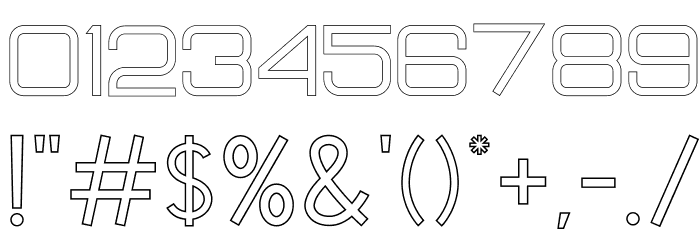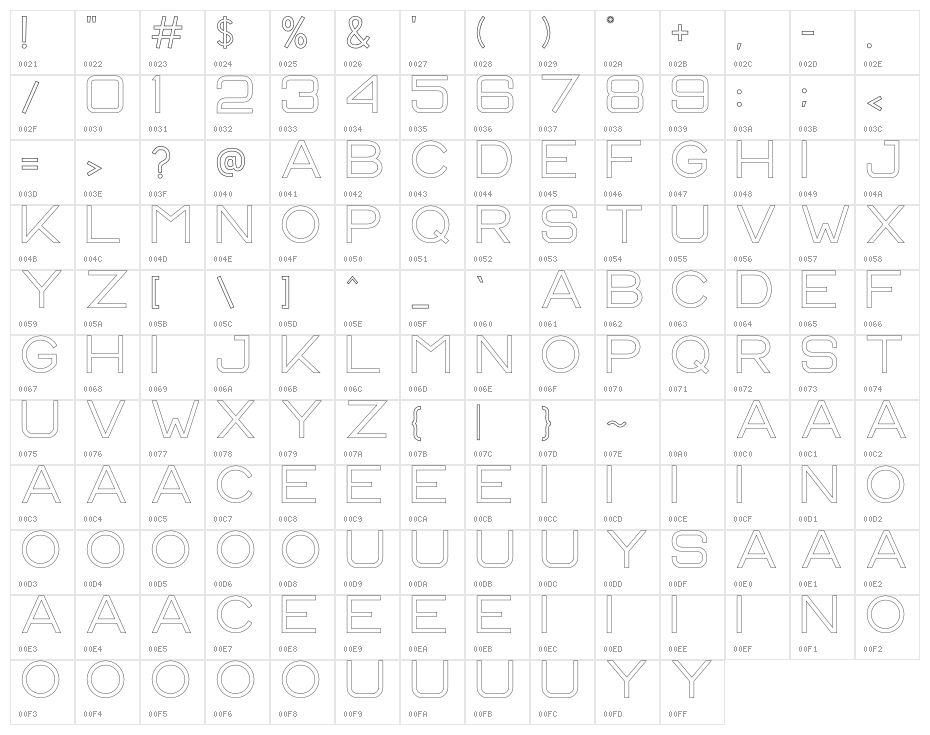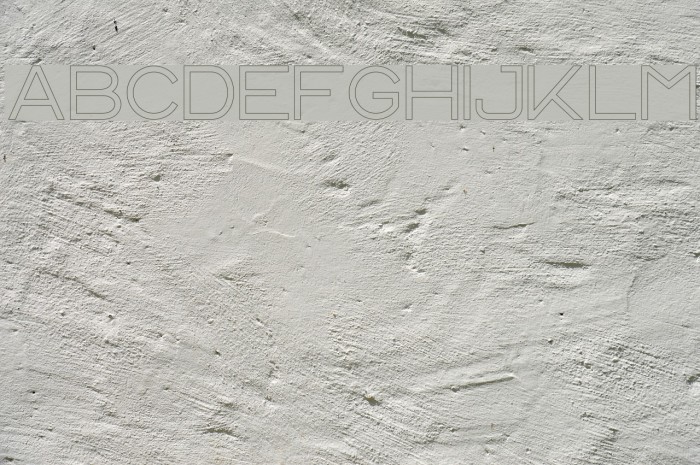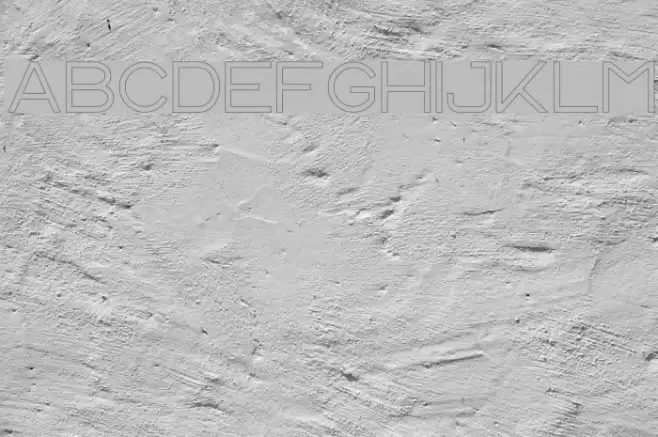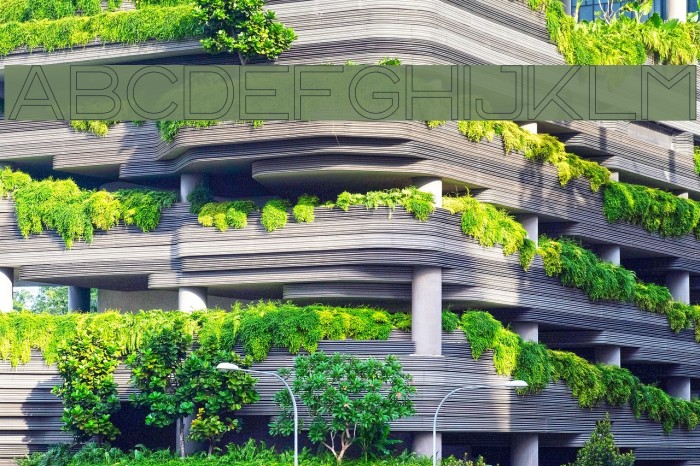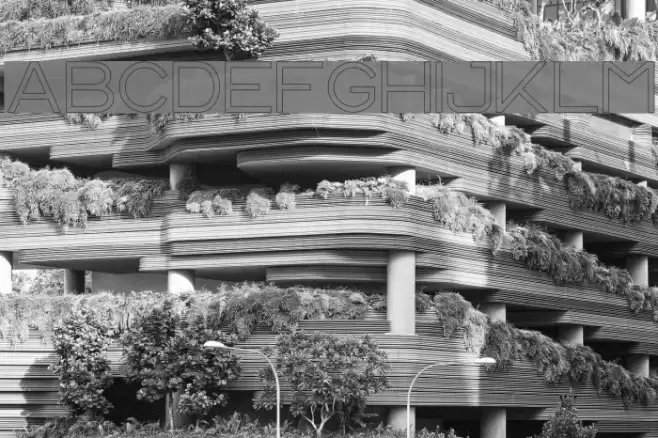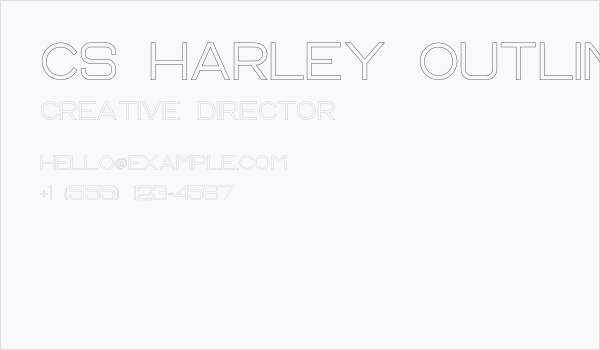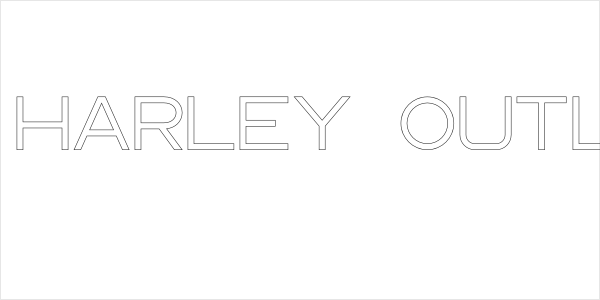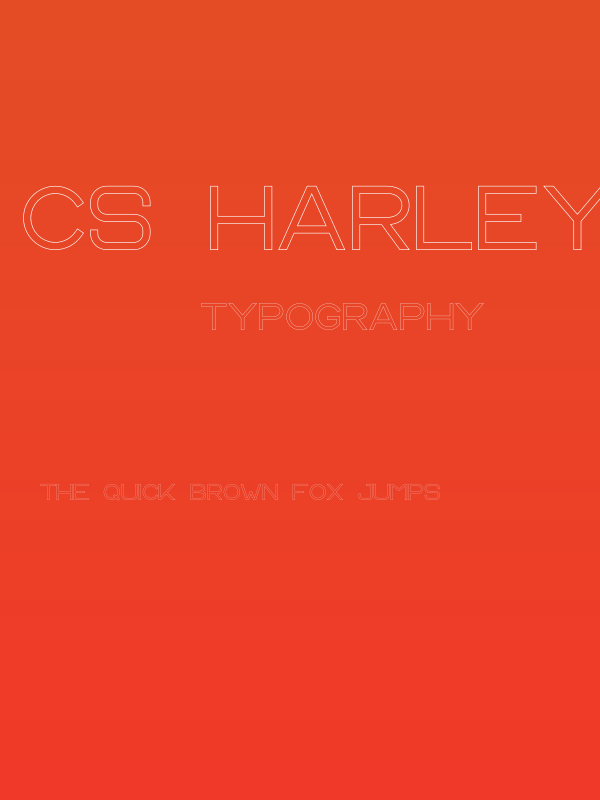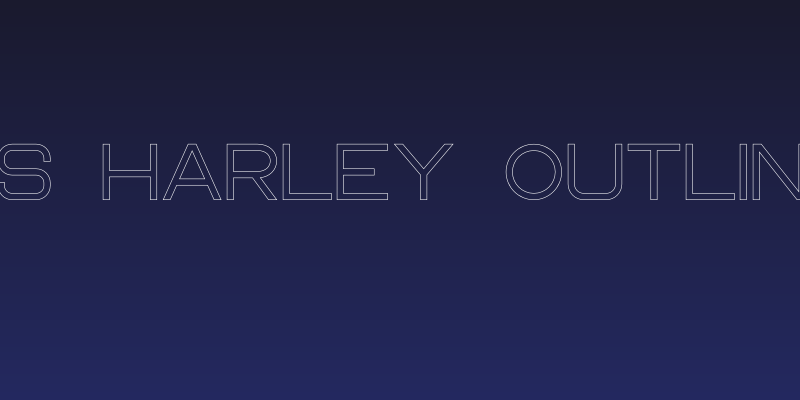
CS Harley Outline Font
CS Harley Outline Description
This font features a clean, geometric outline style that emphasizes modernity and simplicity. Each character is crafted with precision, showcasing a uniform line thickness that creates a cohesive and structured appearance. The uppercase and lowercase letters maintain a consistent height and width, contributing to a balanced and harmonious look. The numerals and special characters are designed to match the overall aesthetic, ensuring versatility across different uses. The font's outline nature gives it a unique, airy feel, making it suitable for projects that require a contemporary and stylish touch.
| Proposed Projects | Ideal for branding, logos, posters, and headlines where a modern and stylish appearance is desired. |